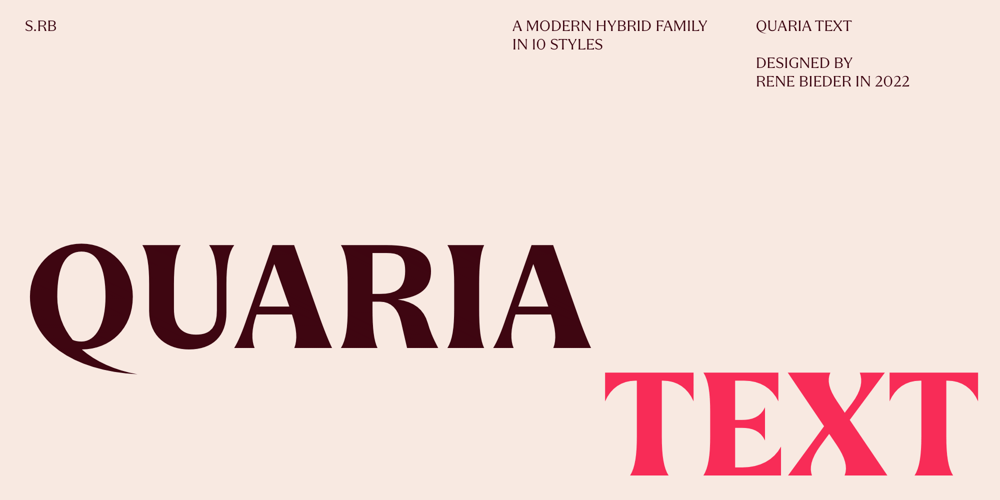
Quaria Text
Quaria Text font
Quaria Text Font Family was designed by René Bieder and published by René Bieder. Quaria Text contains 10 styles and family package options. With the design of Quaria René Bieder embarked on a quest to find the perfect union of elegance and sturdiness, seamlessly blending the refined grace of a serif typeface with the robust reliability of a sans serif. The culmination of this pursuit is a typeface born from the amalgamation of contrasting elements and inspired by the vast typographic heritage spanning two centuries.Quaria’s DNA is a captivating fusion of typographic styles, drawing from the rich pool of elements that have shaped the evolution of type design over the past 200 years. It gracefully transcends the confines of any specific era, embracing the timeless essence of typography while remaining firmly rooted in the present. This harmonious blend of tradition and modernity gives Quaria a distinctive character, elevating it to the realm of a truly elegant and powerful modern hybrid.